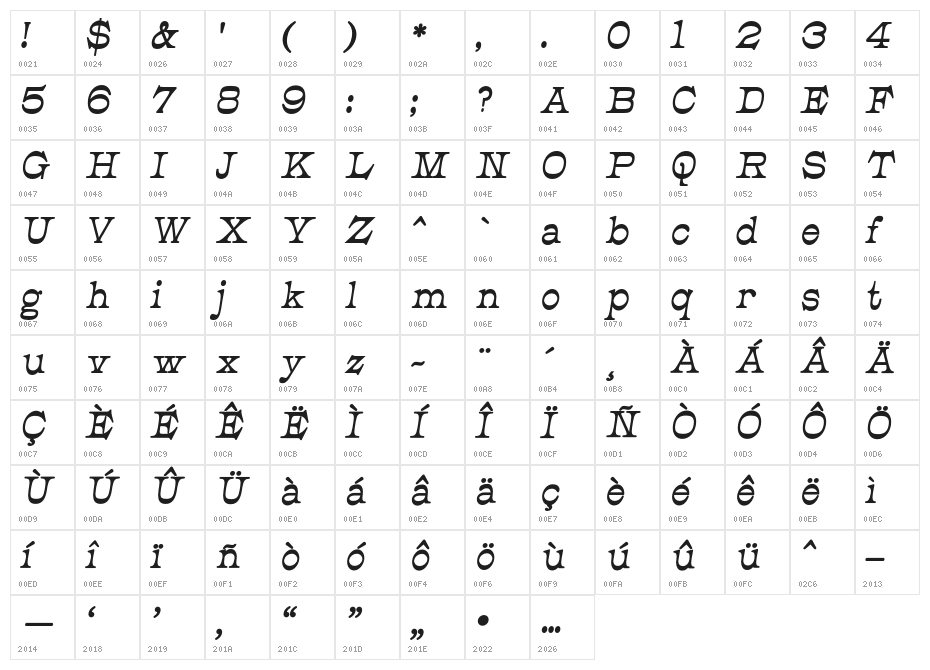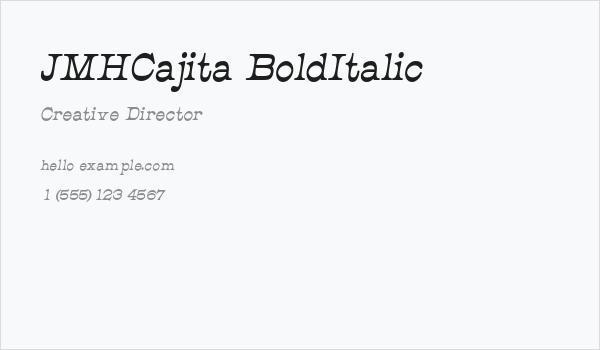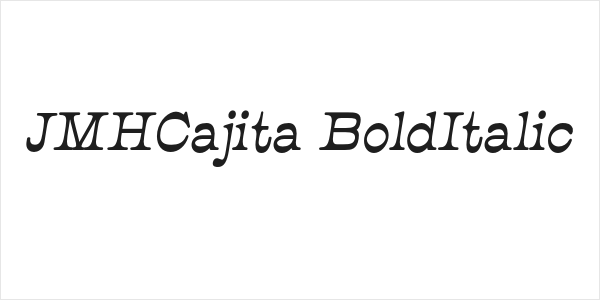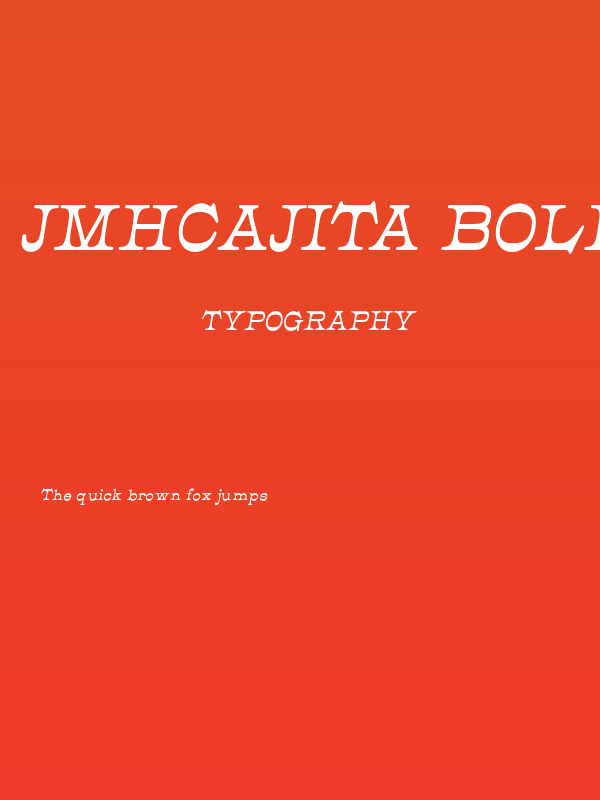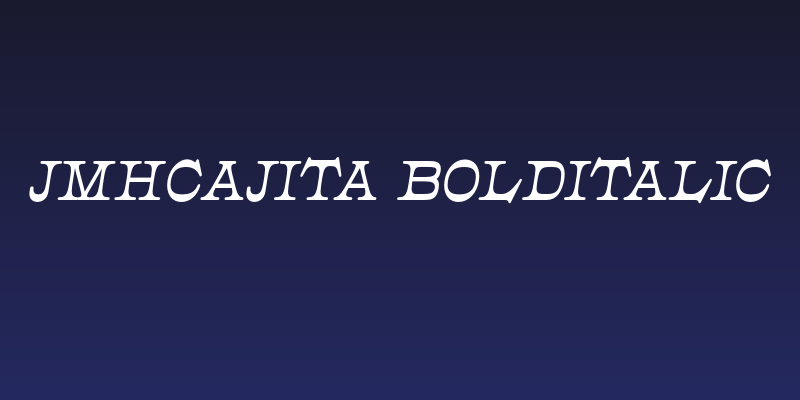
JMHCajita-BoldItalic Font
JMHCajita-BoldItalic Description
This font features a bold and italicized style with a distinctive flair. The characters have a playful yet sophisticated look, with exaggerated serifs and a slight slant that adds dynamism. The uppercase letters are bold and commanding, while the lowercase letters maintain a consistent flow. Numbers are clear and legible, with a unique curvature that complements the overall design. Special characters are creatively styled, adding to the font's versatility. The font's boldness and italicization make it suitable for attention-grabbing headlines and creative projects.
Proposed ProjectsIdeal for branding, poster design, book covers, and creative advertising.